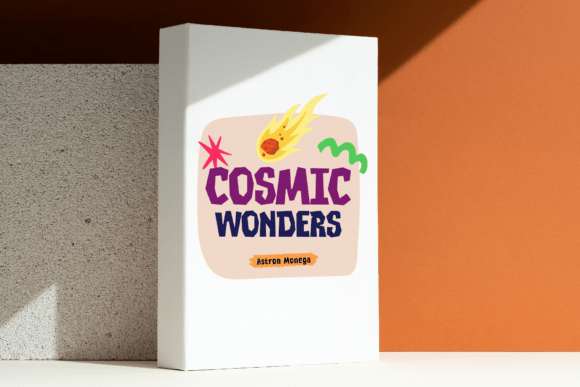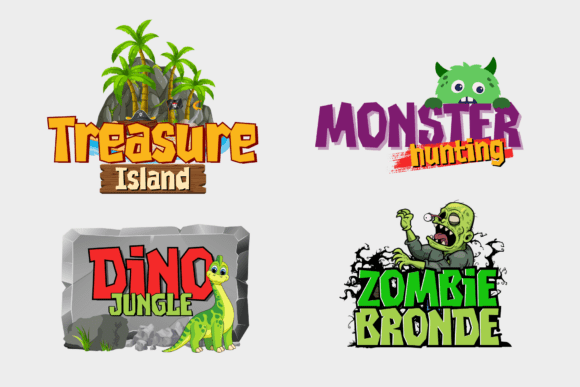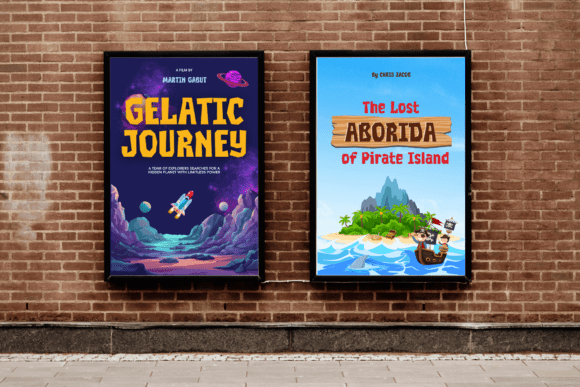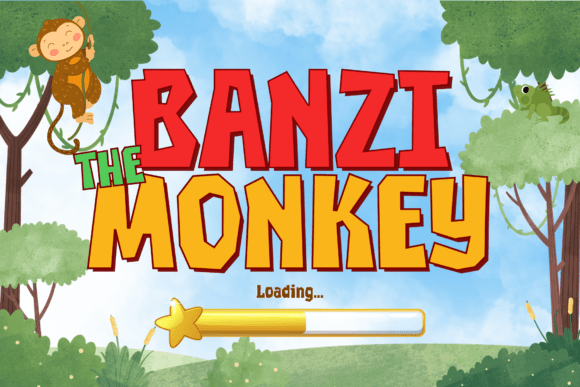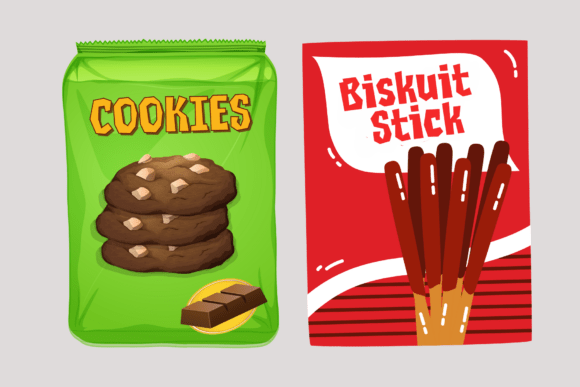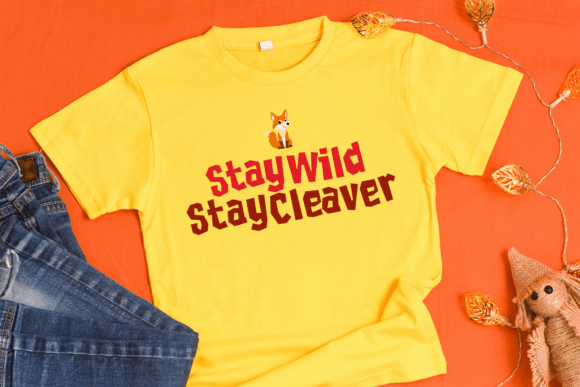
Introduction to Melon Ice Font
Do you remember the excitement of designing a colorful poster for a summer festival or creating a whimsical brand identity for a new product? For many designers, these moments are a rush of creativity and joy. And that’s exactly what the Melon Ice Font is all about – bringing a fresh and cheerful vibe to your designs.
As a valuable design resource, Melon Ice Font is perfect for adding a playful touch to your creative projects. Its rounded shapes and lively character make it ideal for children’s books, posters, packaging, and branding. Whether you’re designing for a fun event or a whimsical brand, Melon Ice Font adds a delightful personality to your work. With its transparent background and high-quality design, this font is a must-have for any designer looking to elevate their projects with a touch of creativity.
Key Features of Melon Ice Font
- High-quality, stylish font design ideal for creative projects and design resources.
- Unique characteristics include a modern, icy aesthetic and a range of stylish characters, making it perfect for creative projects.
- Designed to be versatile and easy to use, the Melon Ice Font is an excellent addition to any designer’s toolkit.
Honest Review: Melon Ice Font
I recently stumbled upon the Melon Ice Font and was excited to see if it would be a valuable addition to my design resource library. As a designer, I’m always on the lookout for unique and creative fonts to elevate my projects.
Here are some things that stood out to me:
- ✨ The font’s quirky, handwritten style adds a touch of personality to any creative project.
- ✨ The high quality of the font makes it perfect for use on transparent backgrounds or as a standalone element.
- ⚠️ The font may not be suitable for projects requiring a more formal or traditional typography style.
- ⚠️ Some users may find the font’s imperfections to be distracting or overwhelming.
Overall, I’m impressed with the Melon Ice Font’s unique style and high quality. While it may not be for every project, it’s definitely a valuable addition to any designer’s library. With its free download option and creative possibilities, it’s definitely worth checking out.
To get the most out of the Melon Ice Font, use it in combination with a transparent background to create a clean and modern look. You can also use it in a variety of creative projects, such as social media graphics, posters, or infographics. Some common use cases include branding, advertising, and editorial design.